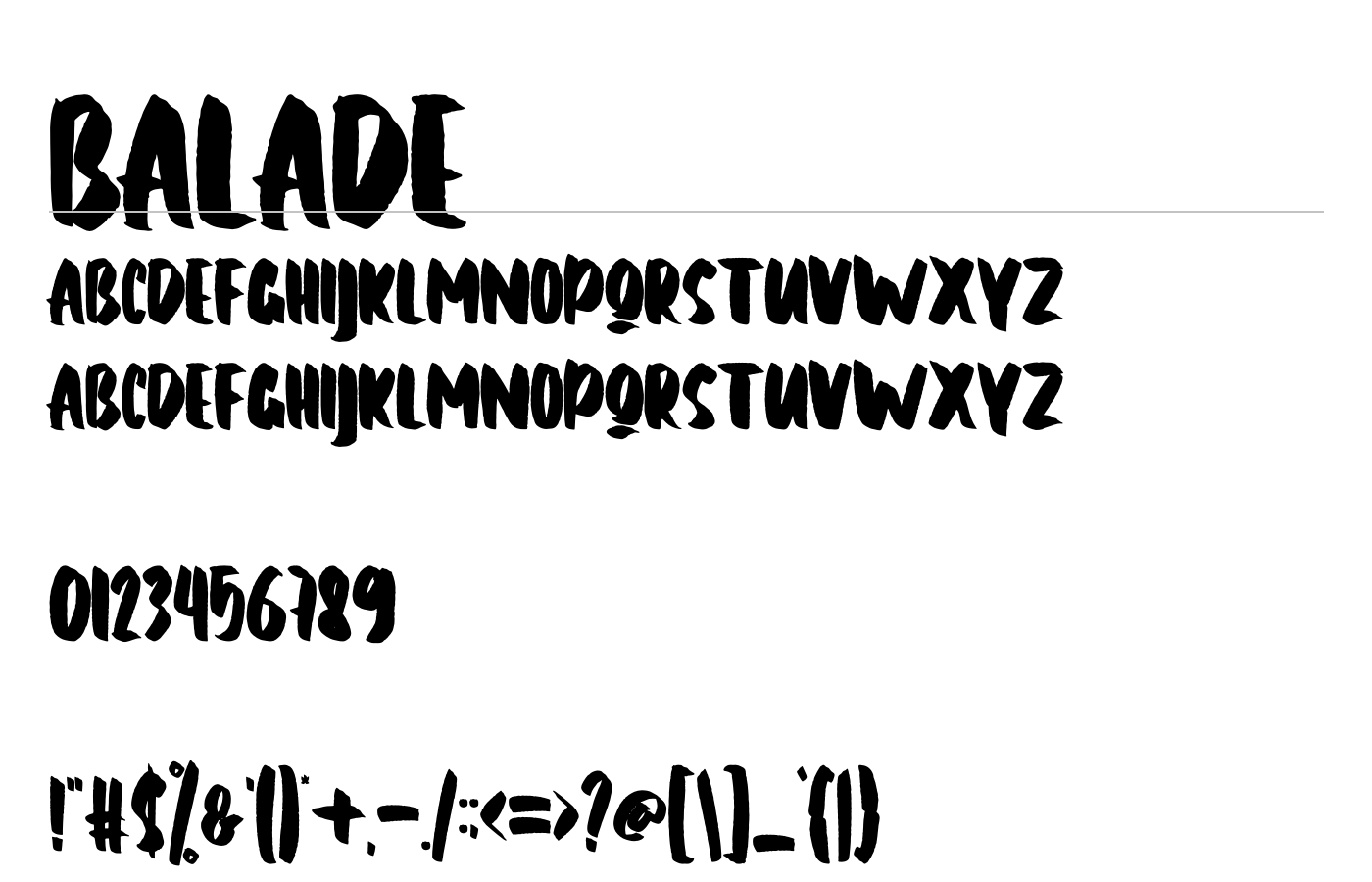
Balade is a bold, brush-style display font that features lively, hand-painted letterforms with a textured, spontaneous feel. Its irregular shapes and thick strokes give it a friendly, informal personality, perfect for creative branding, posters, and eye-catching headlines where a dynamic and artistic touch is desired. This font works well in designs aiming to convey energy and individuality with a handcrafted flair.
Balade Font
About Balade Font